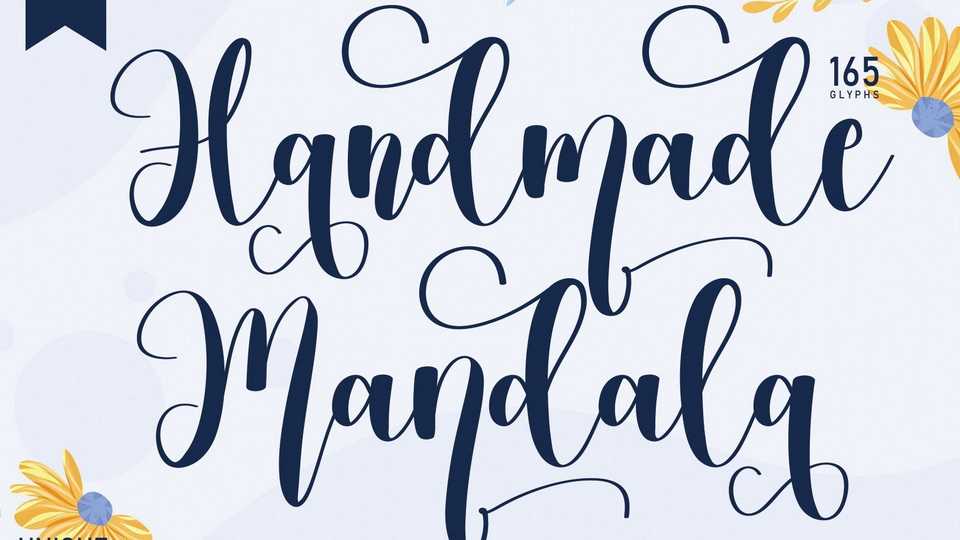
Download Handmade Mandala font, a lovely handwritten typeface with a bouncy flow and beautiful strokes. Handmade Mandala font is perfect for your creative ideas, both formal and informal.